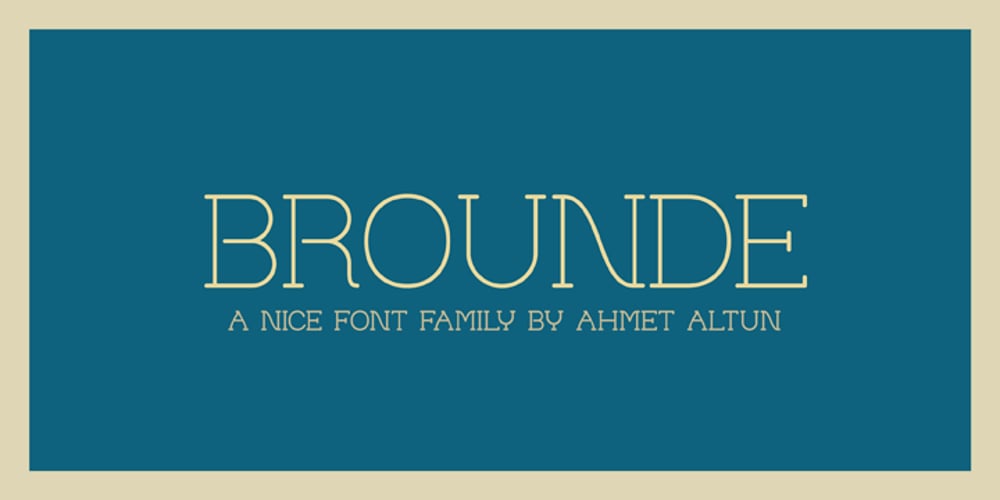
Brounde Font Family was designed by Ahmet Altun and published by Ahmet Altun. Brounde contains 4 styles and family package options. Brounde font comes in four weights from extra light to medium. Legible texts can be created with its rounded slab serif configuration. Also it can be used in posters and every kind of graphic design works.